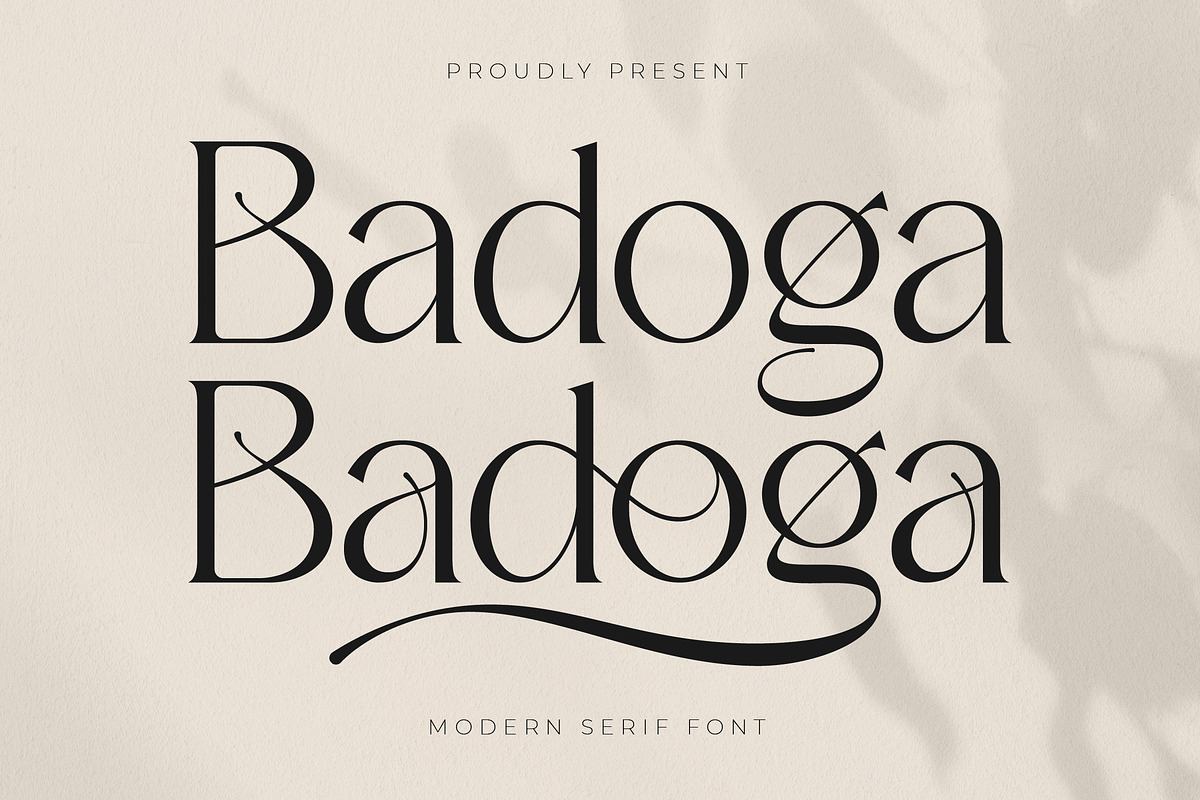
Badoga Modern Serif Font Free Download
Badoga Modern Serif Font Free Download is a sleek, sophisticated typeface designed with a contemporary touch on classic serif styling. With its clean lines, elegant curves, and high contrast strokes, Badoga is perfect for modern branding, editorial layouts, luxury packaging, and high-end marketing materials. Its versatility allows it to be used for both formal and stylish designs.
Using the Badoga Modern Serif Font Free Download adds an air of professionalism and refinement to your typography. Whether you're designing a luxury brand logo, an editorial spread, or a corporate identity, this font gives your work an elegant and timeless appeal.